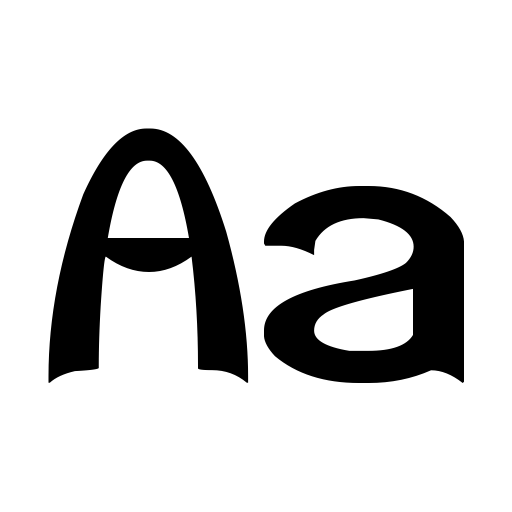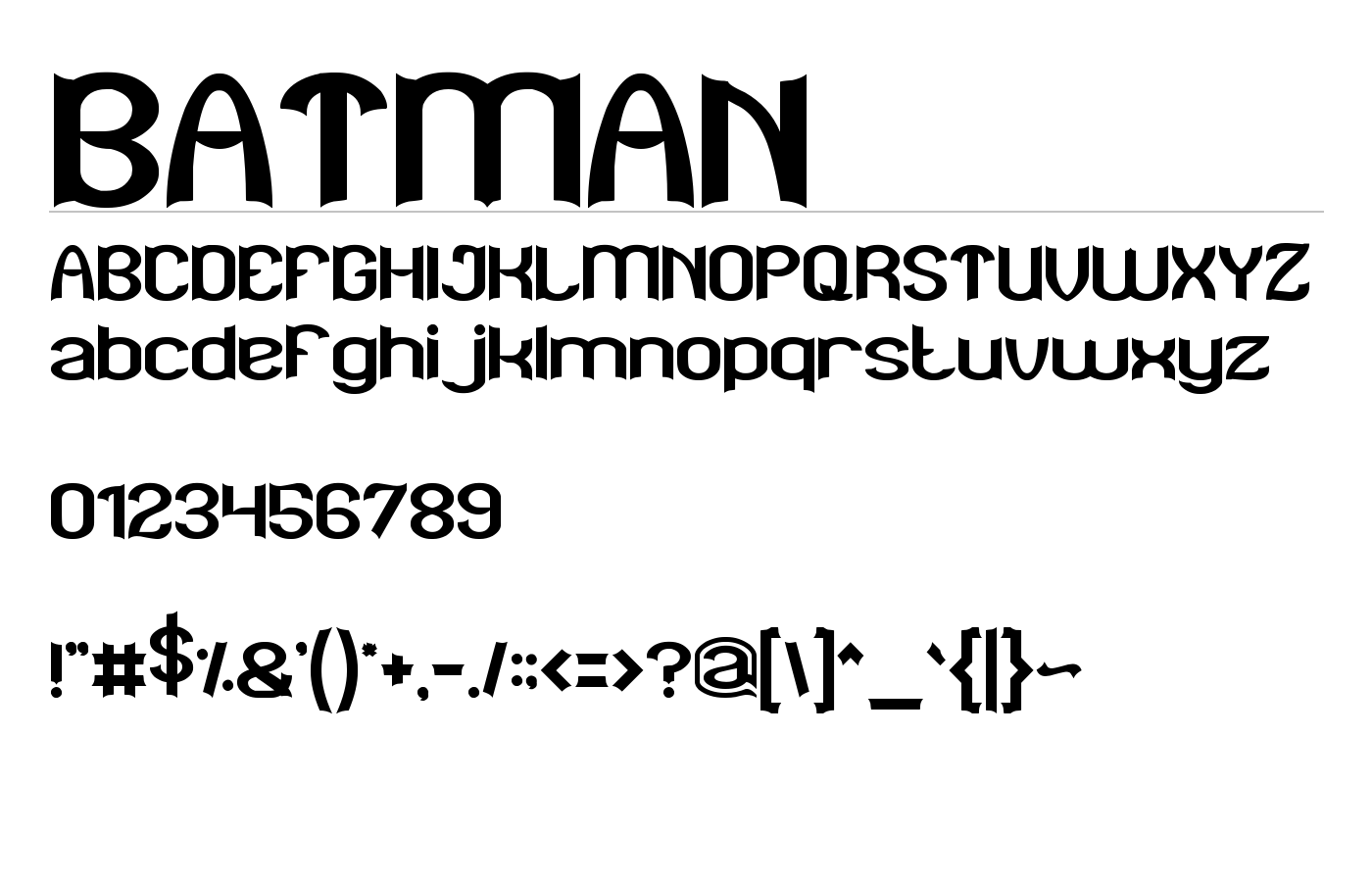
BATMAN Font is a bold, decorative serif typeface with a strong, vintage-inspired personality, featuring sharp, angular serifs and distinctive curves that evoke a sense of mystery and strength. Its medium contrast and unique letterforms make it ideal for eye-catching headlines, logos, and branding, especially in entertainment, fantasy, or superhero-themed designs. This font stands out with its playful yet serious tone, perfect for creating a bold statement where originality and impact are key.
BATMAN Font
About BATMAN Font
| Font family | BATMAN Font |